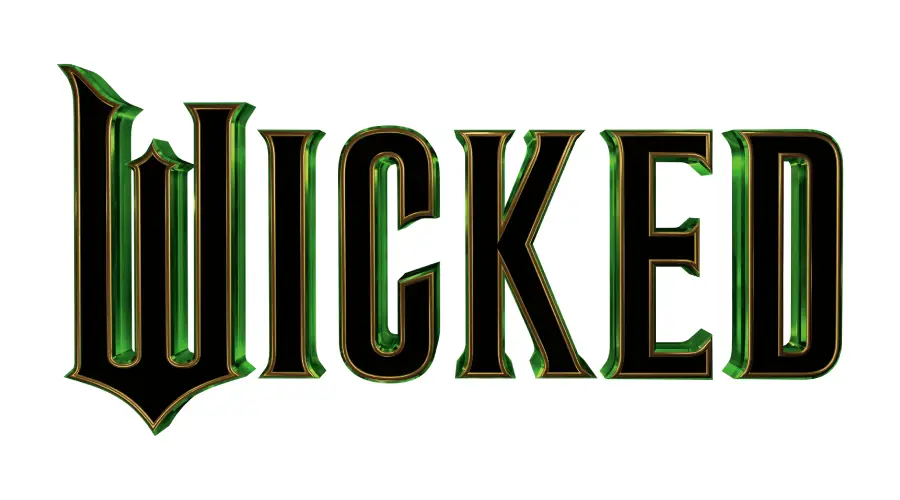
The Wicked Font is a captivating typeface associated with the 2024 musical fantasy film Wicked, which is an adaptation of the beloved Broadway musical. The movie tells the story of Elphaba, the future Wicked Witch of the West, and her intricate relationship with Glinda, the Good Witch of the North. The font used in the movie logo exudes a mystical, dramatic, and vintage vibe, perfectly aligning with the film’s enchanting theme.
While there isnβt an official font explicitly named “Wicked Font,” the logoβs typography closely resembles Widow by FG Studios.
Similar Fonts to Wicked Font
If youβre looking for similar fonts to recreate the Wicked movie logo or for other creative projects, here are some excellent alternatives:
Widow by FG StudiosΒ β The closest match to the Wicked movie logo font, featuring a bold, gothic-inspired design.
Green Grove Bold by True Story LetterworksΒ β A rustic, vintage-style font that shares a similar dramatic flair.
Vintage Whiskey Regular by VozzyΒ β A decorative typeface with a retro vibe, perfect for projects needing a mystical touch.